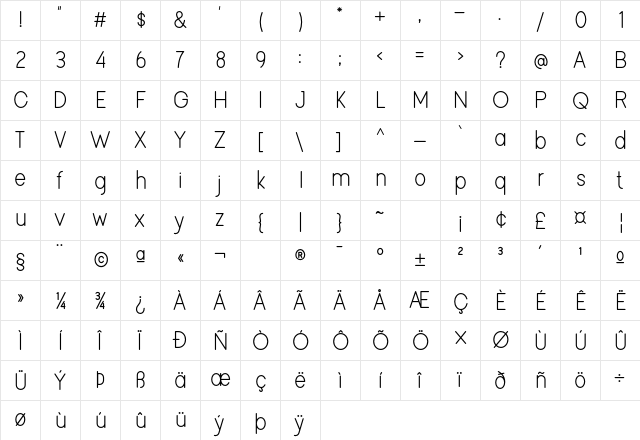
Viminalis Regular
| Designer | ekosamp |
Design Context for Viminalis Typeface
Viminalis is a composed and adaptable typeface that performs quietly and consistently across a wide range of design contexts.